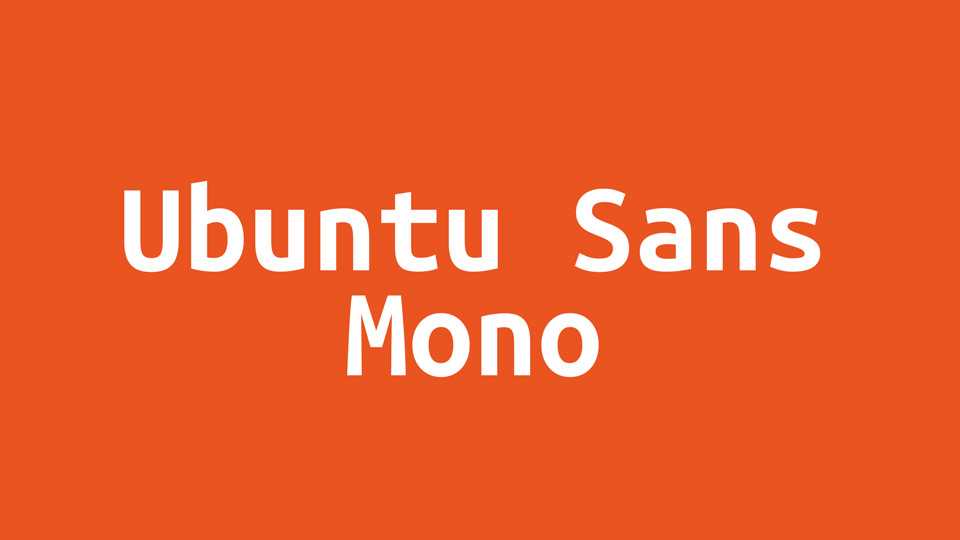
Download Ubuntu Sans Mono font, an integral component of the Ubuntu typeface tailored for monospaced applications. This typeface combines the clarity and readability associated with the Ubuntu brand with the precision and uniformity required in coding and terminal environments.
Designer: Canonical